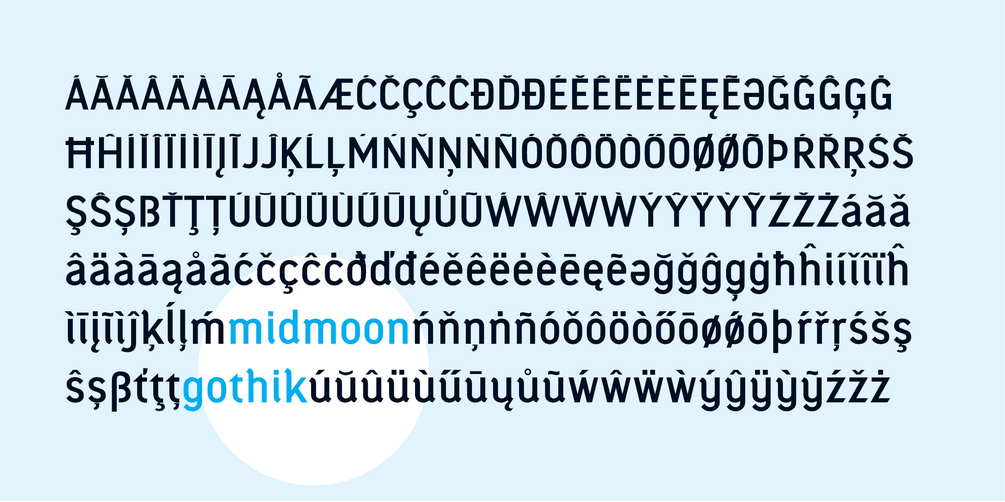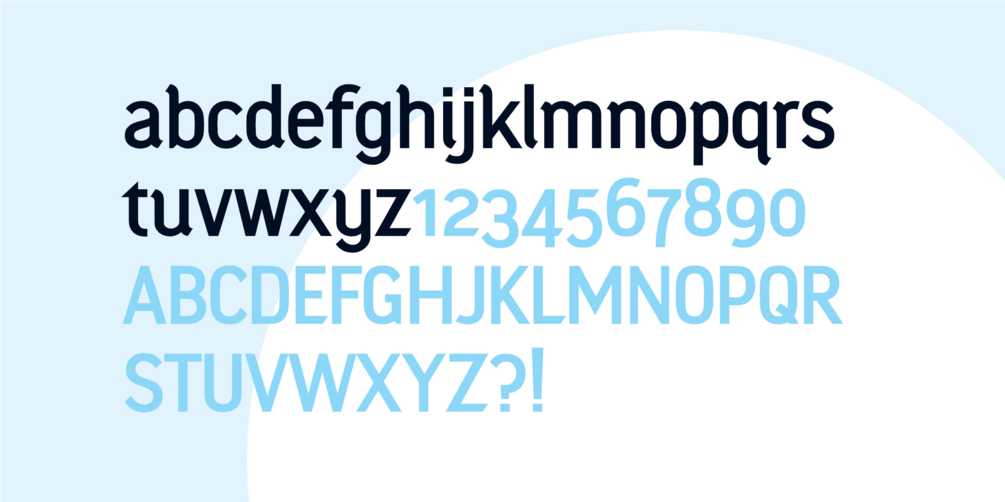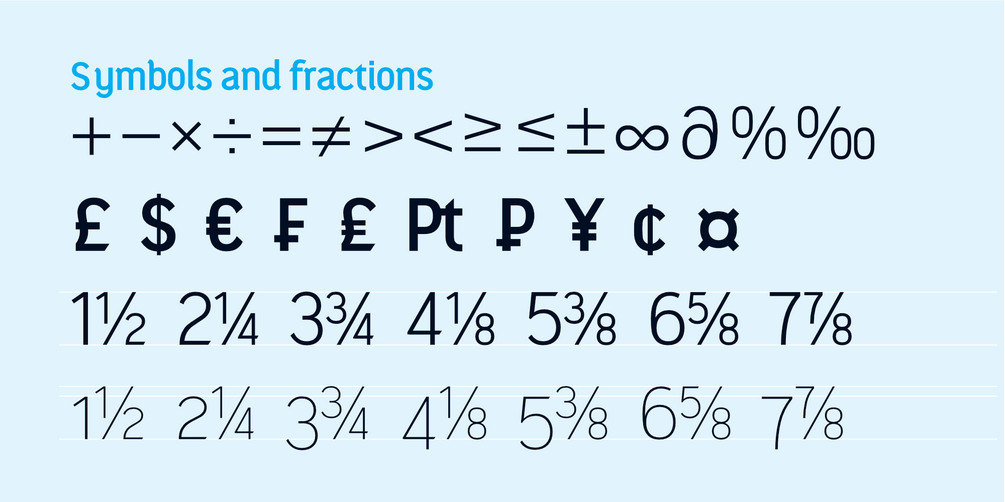
Midmoon Gothik typeface family
Midmoon Gothik typeface is designed for typesetting magazines and information-heavy publications; using simple, clean letterforms for clear communication with plenty of character.
Features
4 weights included now (Regular, Hairline, Thin and Light)
Ligatures:      fi fl ij
Numerals: tabbed lining, proportional lining and proportional oldstyle
Fractions: ½, ¼, ¾, ⅛, ⅜, ⅝, ⅞
Symbols: ¶ § © ® ℗ ™ ° † ‡ ℮ ¢ ¤ $ € ₣ ₤ ₧ £ ₽ ¥
Maths: ⁼+−×÷=≠><≥≤±∂%‰
Arrows
Capital spacing
OT Features: aalt calt case ccmp cpsp dlig dnom frac kern liga lnum locl mark mkmk numr onum ordn pnum salt sups tnum
Supported languages: Bosnian, Catalan, Czech, Danish, German, English, Spanish, Estonian, Finnish, French, Irish, Croatian, Hungarian, Icelandic, Italian, Lithuanian, Latvian, Maltese, Dutch, Norwegian, Portuguese, Romanian, Slovenian, Albanian, Swedish, Turkish.